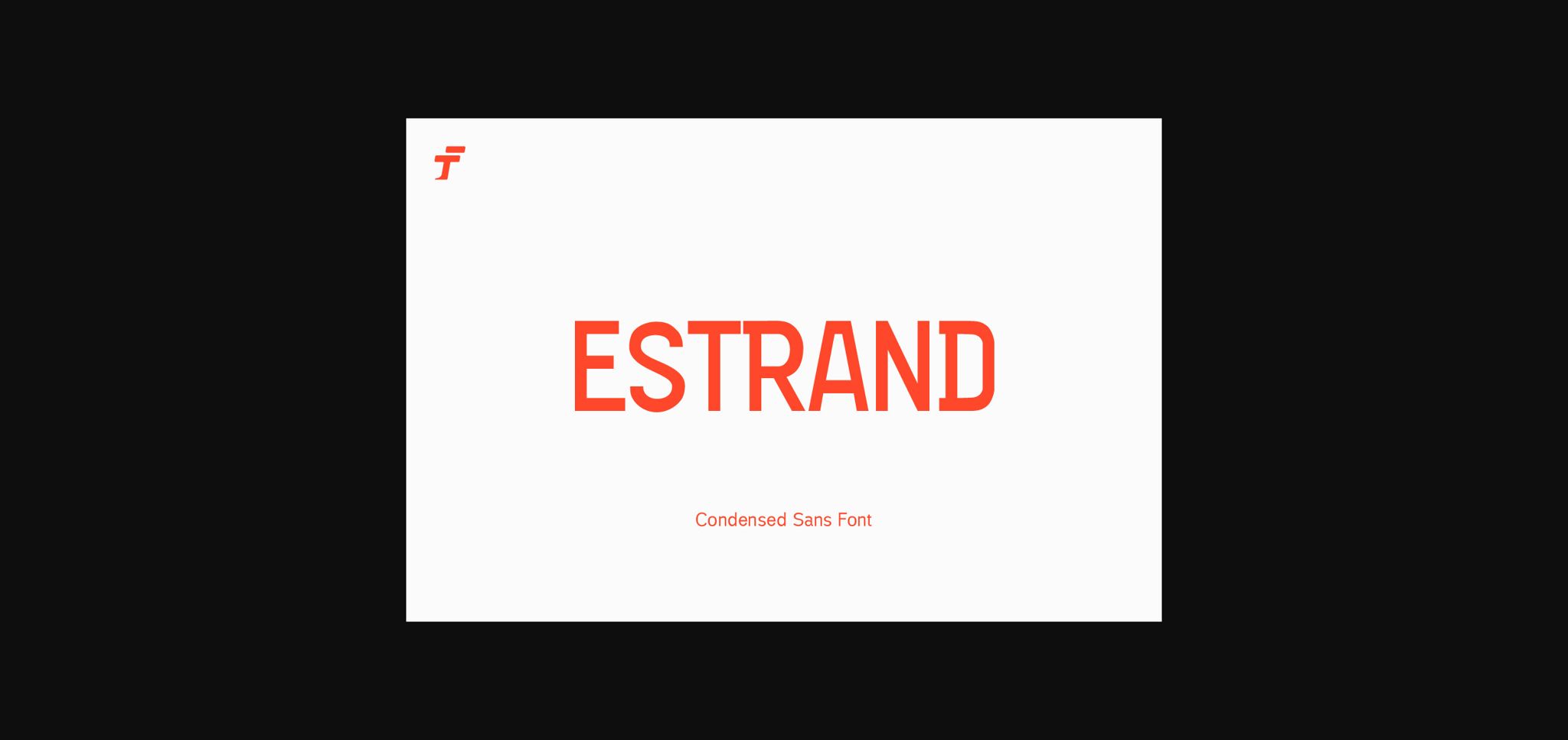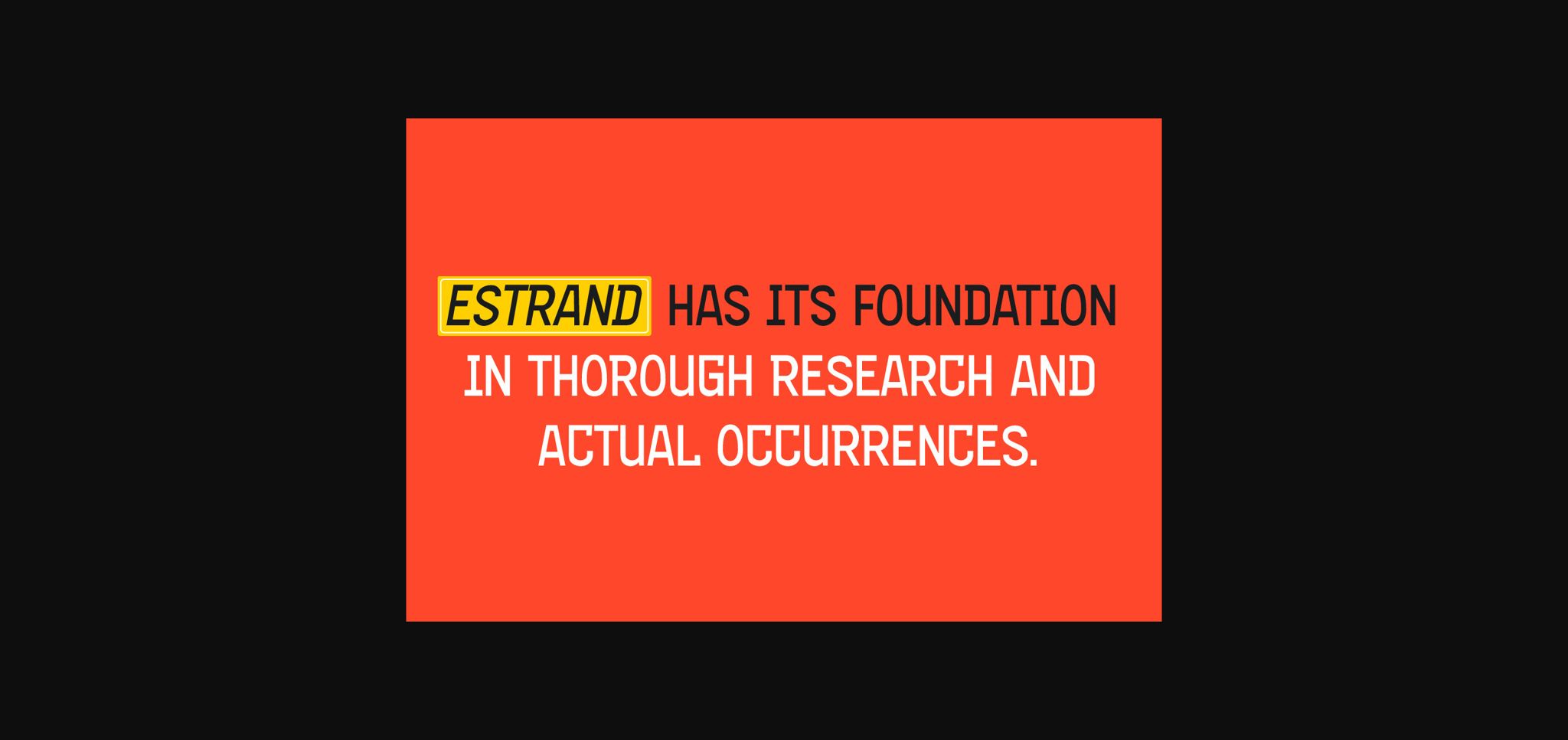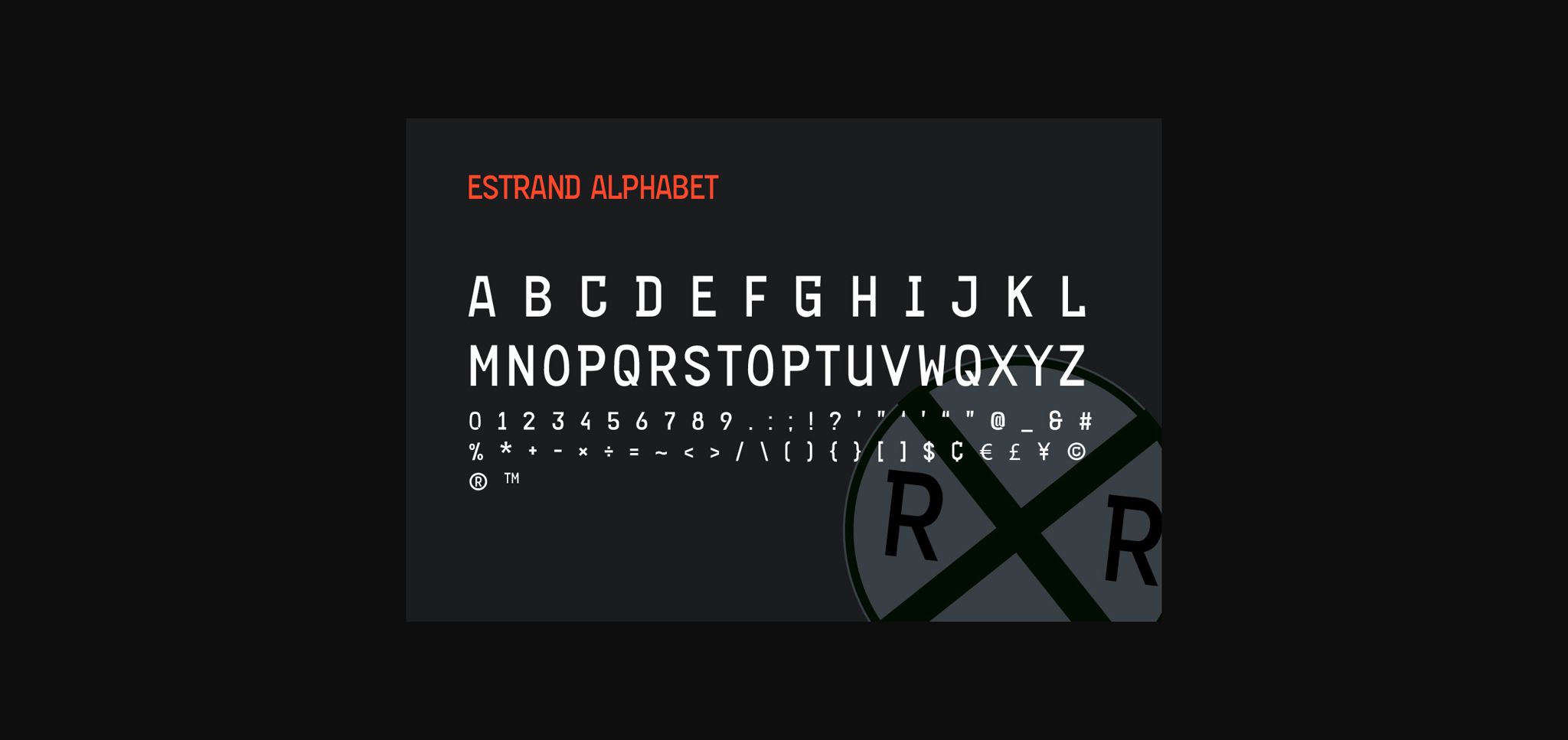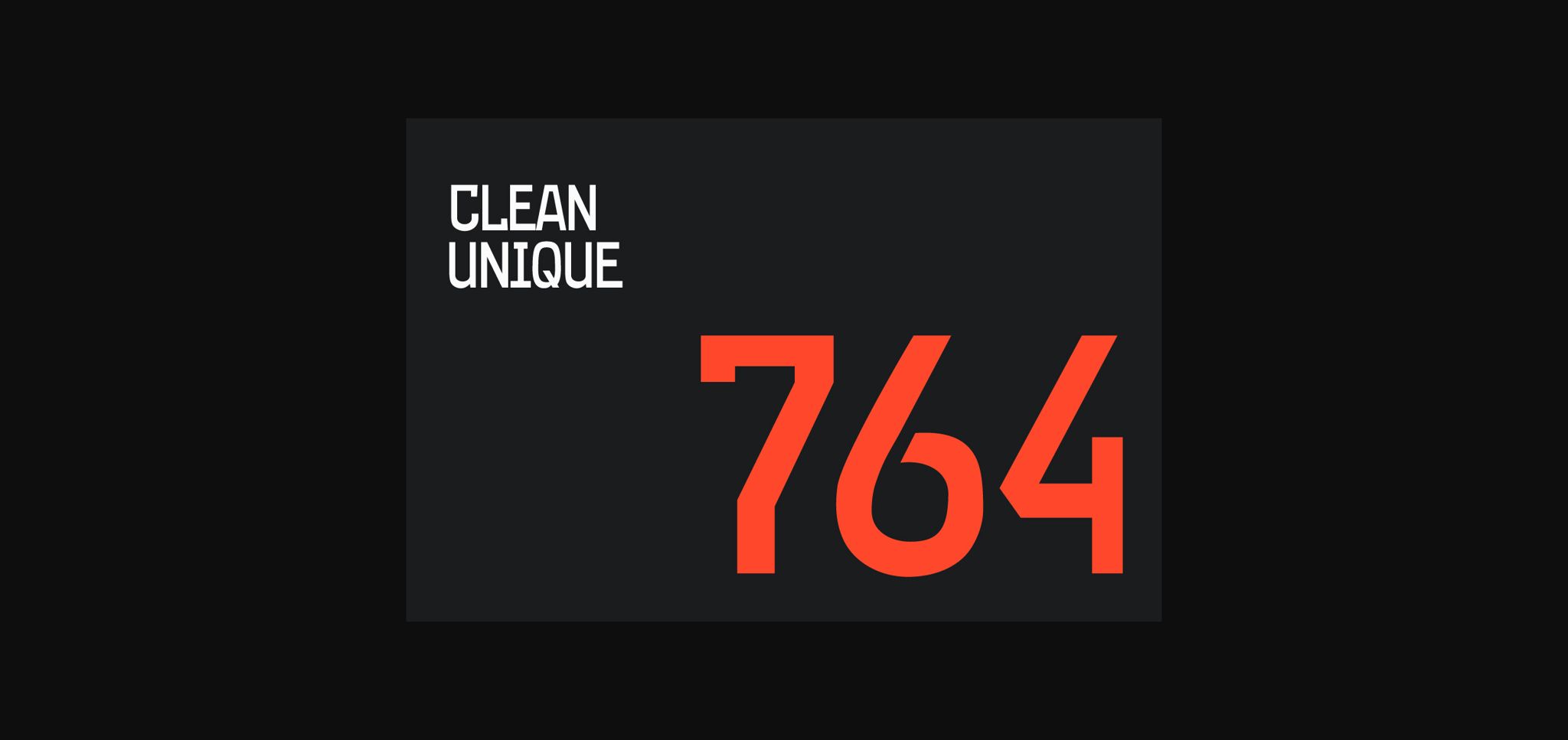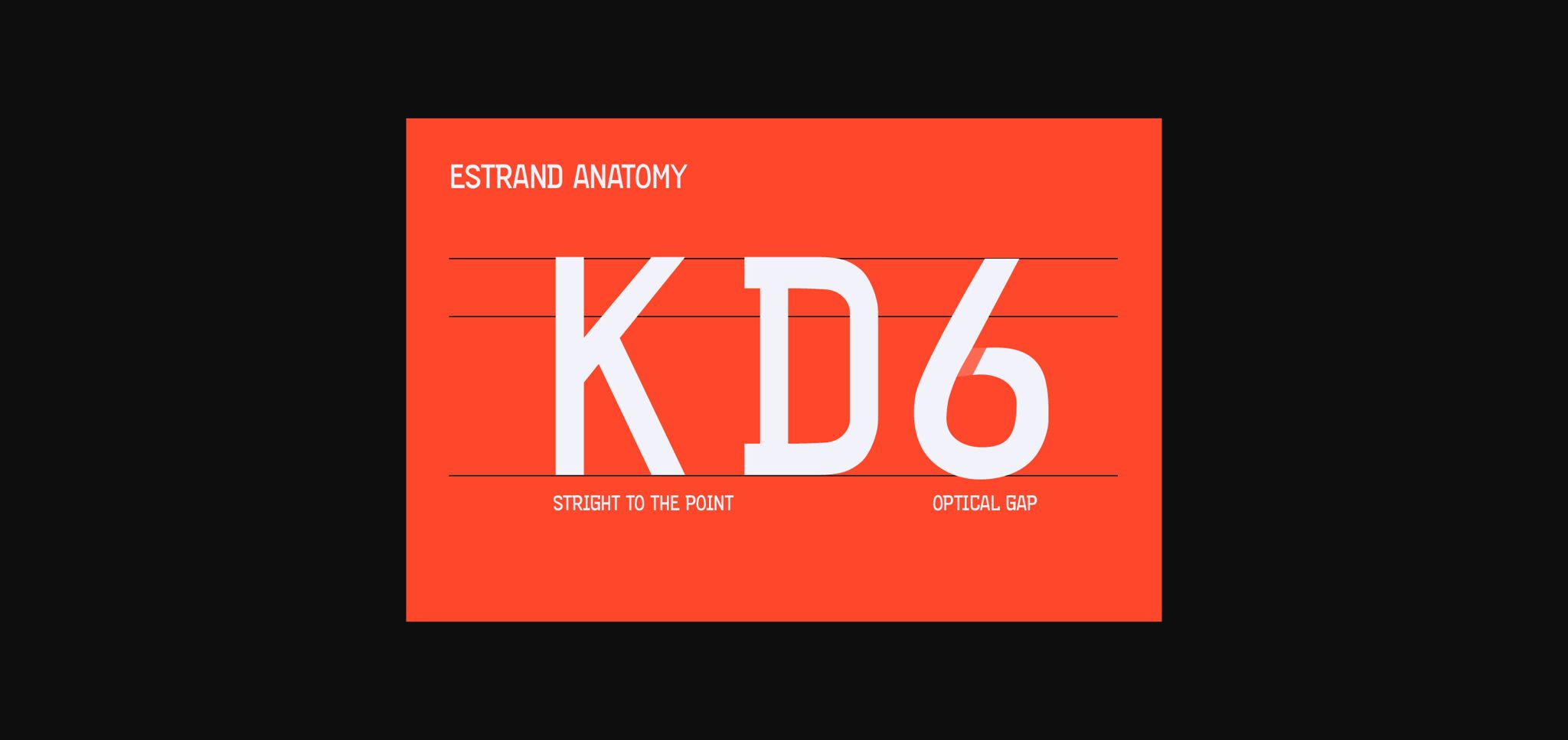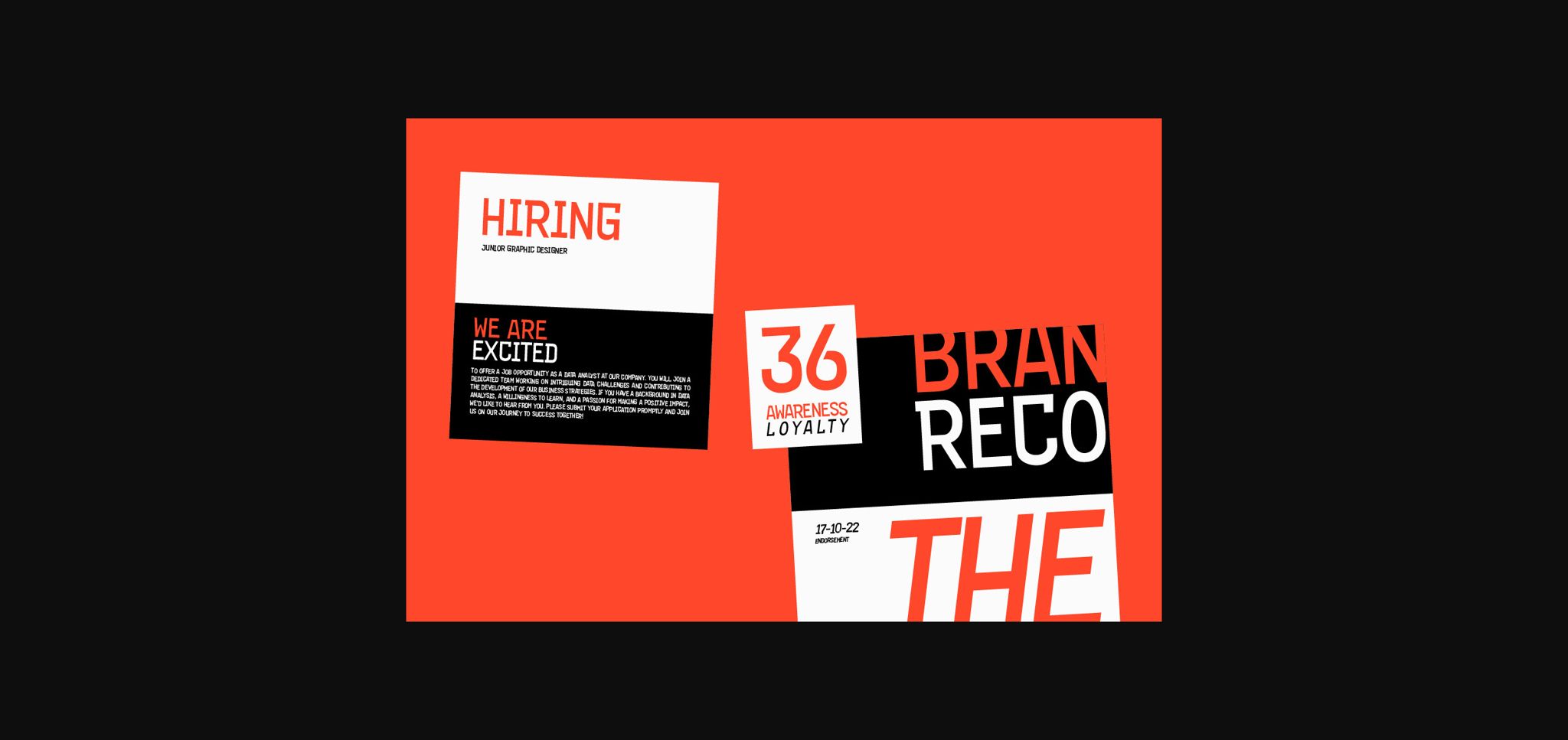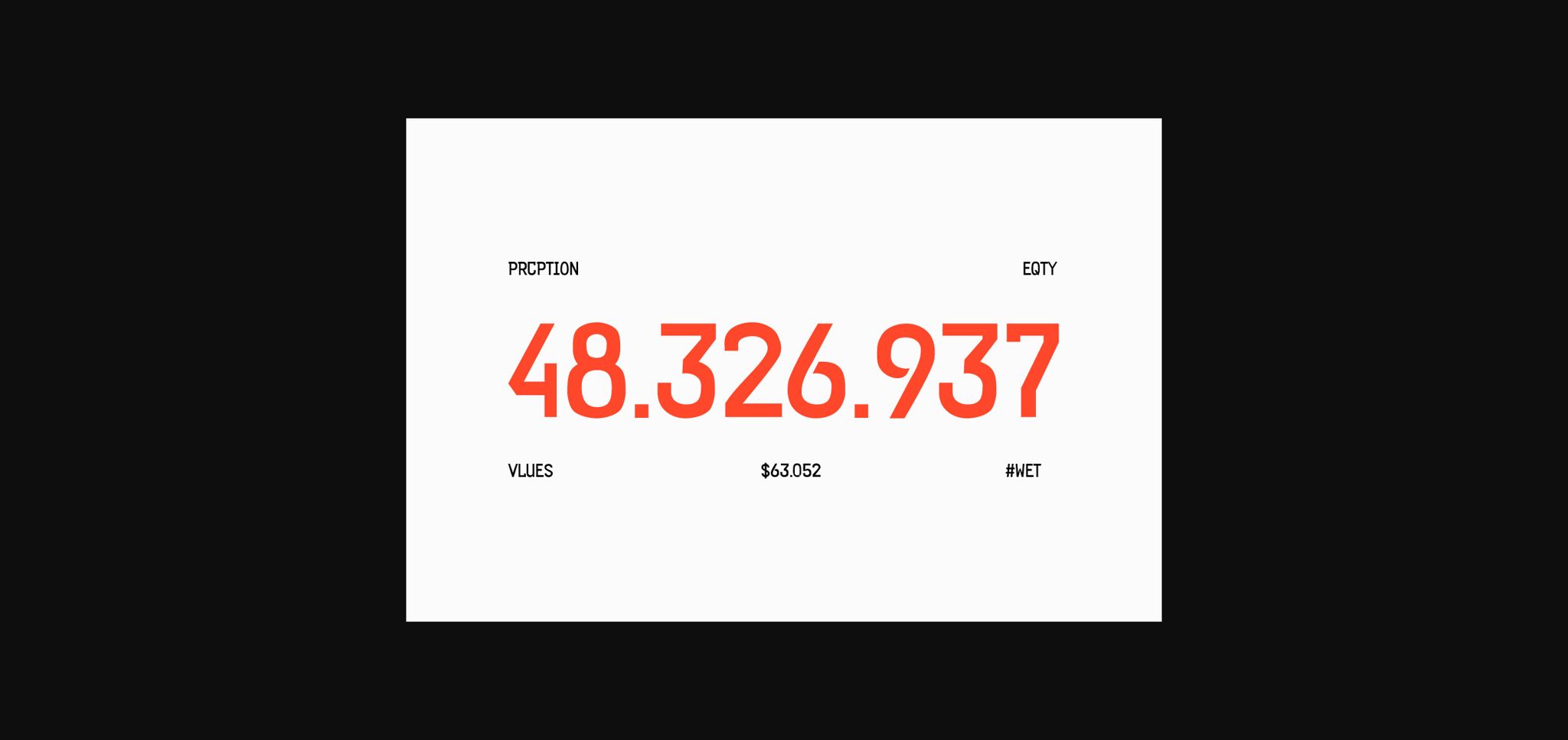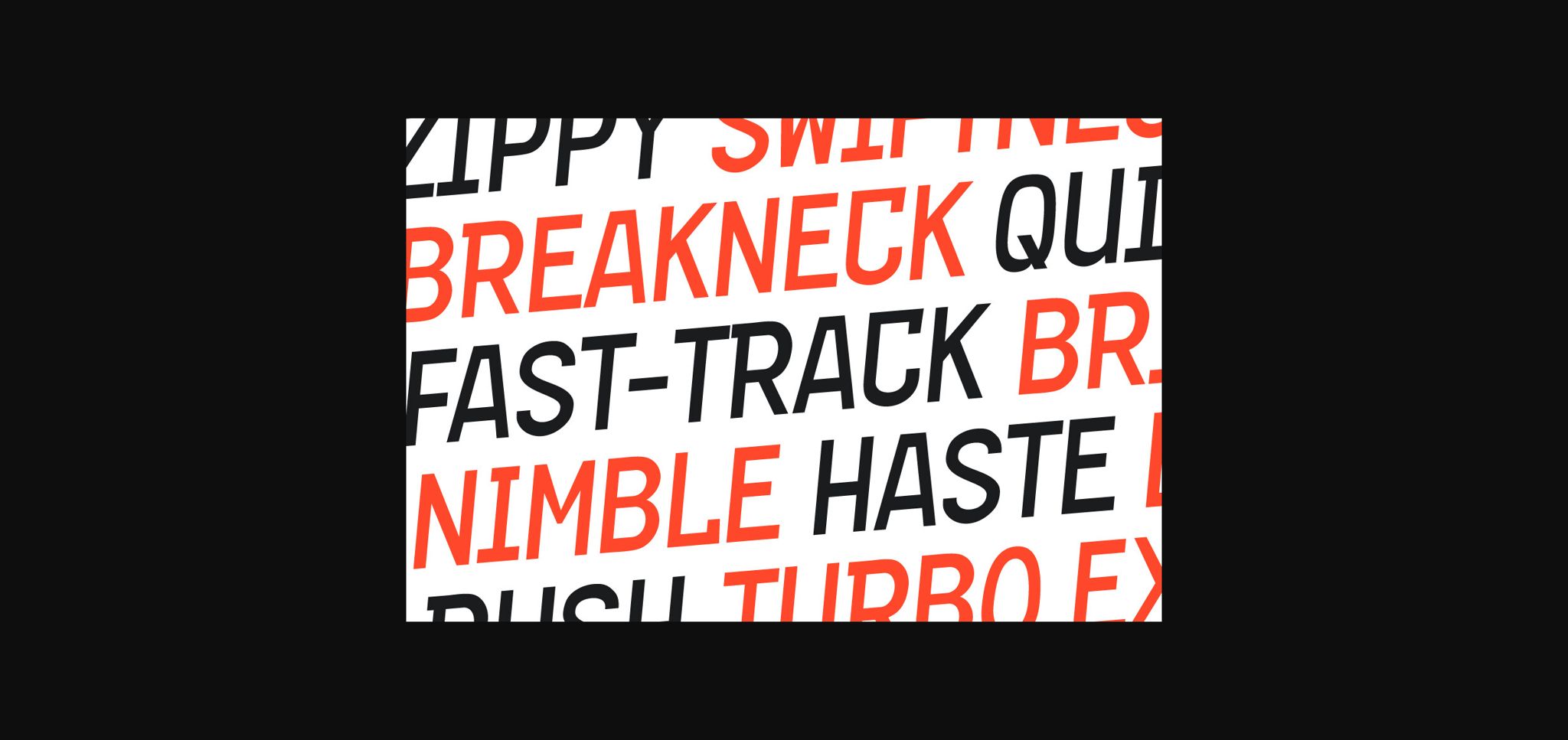
Estrand Font
About Estrand Font
Estrand is a condensed sans-serif font meticulously crafted for durability and versatility. Ideal for industrial and outdoor applications, including road signage and traffic signage, this font boasts a robust letterform anatomy that ensures clarity even in challenging conditions.
Modern Sans Serif:
Estrand is a sans-serif typeface that embodies modern simplicity and straightforwardness. Its clean lines and uncluttered design make it an excellent choice for a wide range of design projects.
Perfect for Industrial and Outdoor Use:
Estrand’s durability and legibility make it the perfect choice for industrial contexts and outdoor settings. Whether it’s on road signs, traffic signals, or outdoor branding, this font delivers the message with utmost clarity.
Strong Letterform Anatomy:
What sets Estrand apart is its strong and clear letterforms. Even in adverse conditions like low visibility or extreme weather, the font remains reliable, ensuring that your message is always communicated effectively.
Versatile and Dependable:
Estrand is a versatile and dependable font that works seamlessly across various design contexts. It’s engineered to excel in all applications, from product branding to informational signage.
Elevate Your Typography:
With Estrand, you’re not just selecting a font; you’re elevating your typography to a level of modern durability and clarity.
Estrand’s combination of modern simplicity and robust performance ensures that it shines in the most demanding settings, from industrial branding to outdoor signage.